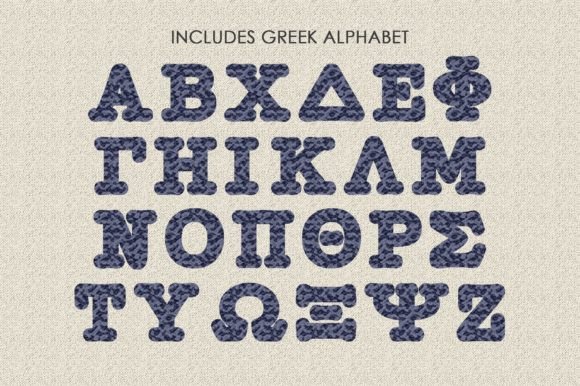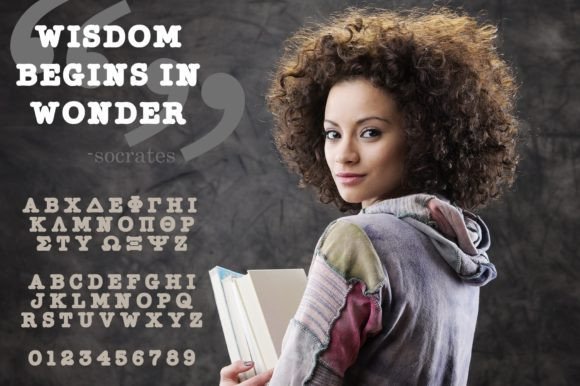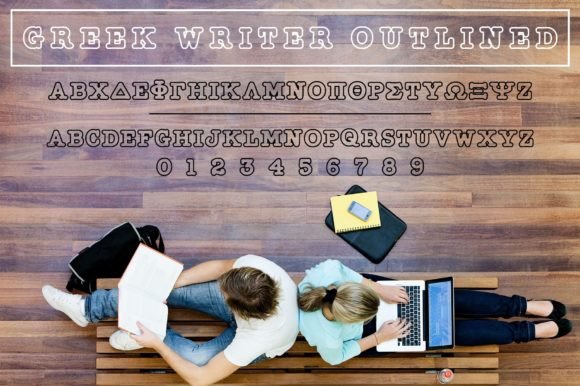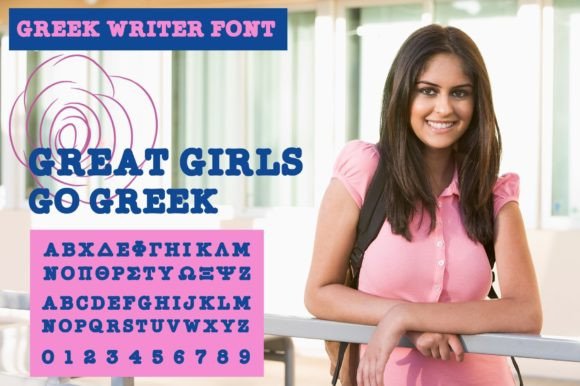
Introducing the Greek Writer Font: A Unique Serif Font for Fraternity and Sorority Designs
Are you a designer or crafter looking for a font that can help you create stunning Greek and collegiate-themed designs? Look no further than the Greek Writer font. This unique serif font is specifically designed for fraternities and sororities, making it the perfect choice for designing T-shirts, promotional products, and more.
What Makes the Greek Writer Font Special?
The Greek Writer font is a one-of-a-kind font that is tailored to meet the needs of designers and crafters who work with Greek and collegiate designs. One of the standout features of this font is that it does not have a lower case, making it perfect for creating bold and eye-catching designs that are sure to stand out.
With its classic serif design, the Greek Writer font is reminiscent of traditional Greek and Latin scripts. The font’s unique design ensures that it is instantly recognizable as a Greek-inspired font, making it perfect for fraternity and sorority designs.
Uses for the Greek Writer Font
The Greek Writer font is incredibly versatile and can be used for a wide range of design projects. Here are some ideas to get you started:
- T-shirts and apparel: Create stunning Greek and collegiate-themed T-shirts, hoodies, and other apparel using the Greek Writer font.
- Promotional products: Use the Greek Writer font to design promotional products such as water bottles, coffee mugs, and tote bags.
- Signs and posters: Create eye-catching signs and posters for Greek events, meetings, and gatherings.
- Stationery and invitations: Use the Greek Writer font to design stationery, invitations, and other paper goods for Greek events.
Why Choose the Greek Writer Font?
There are many fonts available that claim to be suitable for Greek and collegiate designs, but the Greek Writer font stands out from the rest. Here are just a few reasons why:
- Unique design: The Greek Writer font has a unique design that is specifically tailored to Greek and collegiate designs.
- Easy to read: The font is easy to read, even at small sizes, making it perfect for designing T-shirts, promotional products, and other materials.
- Instant recognition: The Greek Writer font is instantly recognizable as a Greek-inspired font, making it perfect for fraternity and sorority designs.
Tips for Using the Greek Writer Font
Here are a few tips to help you get the most out of the Greek Writer font:
- Use it with contrasting colors: The Greek Writer font looks best when paired with contrasting colors. Try pairing it with a bold color to create a striking design.
- Experiment with different sizes: The Greek Writer font can be used at a variety of sizes, from small to large. Experiment with different sizes to find the one that works best for your design.
- Pair it with other fonts: The Greek Writer font can be paired with other fonts to create a unique and interesting design. Try pairing it with a sans-serif font for a bold and modern look.
The Greek Writer font is a unique and versatile font that is perfect for designing Greek and collegiate-themed designs. With its classic serif design and bold, eye-catching style, it’s the perfect choice for fraternity and sorority designs. Whether you’re a designer or crafter, the Greek Writer font is sure to become a staple in your font collection.